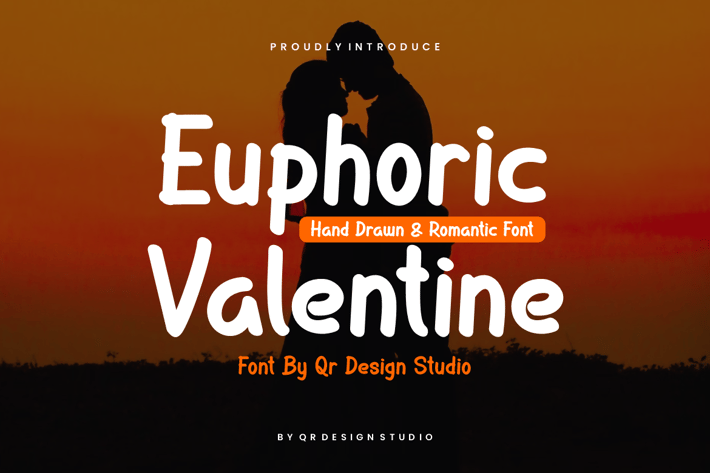
Euphoric Valentine Font
Euphoric Valentine Font is a Hand drawn and authentic display font.
The font is suitable for any branding project like greeting card, poster, logo, sport, and many more.